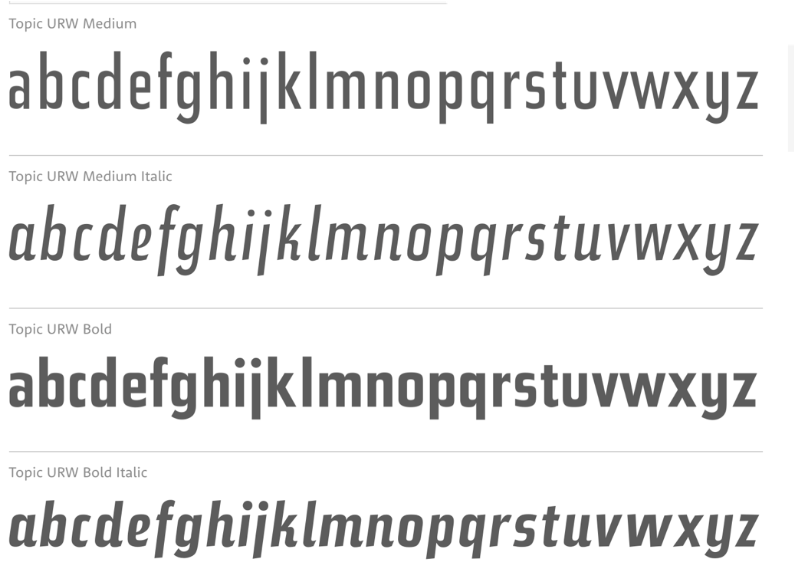
I haven’t identified the Magnetophonband or BASF, but the other words are set in Futura (Condensed for Typ LGS 35).
This is a package design from the early 60s. Magnetophonband is set in a face similar to Paul Renner’s Steile Futura, also known as Bauer Topic. There are some differences (the point of the M, the lack of curved terminals on some letters, etc.), but as you can see from the photo of the plastic container, the top word is set in Steile Futura.
Thanks, do you know what font the BASF is?
City Bold, by Georg Trump in 1930, slightly condensed is a good candidate
City Bold works great but still need the font for Magnetophonband
Citadina Black Italic is the closest I found, it works, just had to adjust it some by creating font outlines in Illustrator.
Citadina looks good. Still a few corrections, but very close.